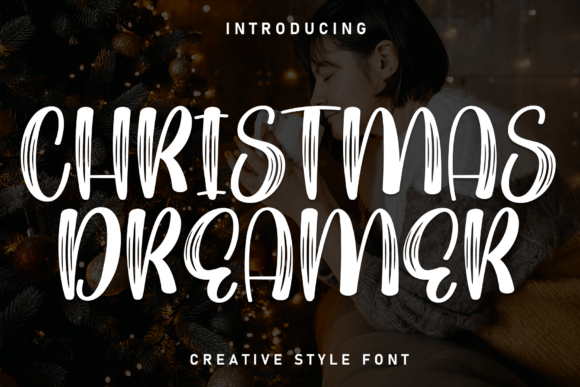
Christmas Dreamer: The Whimsical Typeface That Captures Holiday Wonder
There is a specific feeling that defines the holiday seasonβa blend of nostalgia, excitement, and cozy warmth. It is the sensation of wrapping paper crinkling under your fingers, the glow of string lights against a dark window, and the smell of pine needles in the air. For designers, marketers, and creative enthusiasts, capturing this intangible emotion on a screen or a printed page is often the most challenging part of the job. This is where Christmas Dreamer steps in. It is not merely a font; it is a visual bridge between the mundane and the magical, designed to bring the spirit of the holidays to life through bold strokes and hand-drawn details.
Understanding the Character of Christmas Dreamer
At its core, Christmas Dreamer is a typeface that refuses to be perfect. In an era dominated by sleek, geometric sans-serifs and rigid modernism, this font embraces the imperfections that make the holidays feel authentic. The design features thick, confident downstrokes contrasted with delicate, whimsical flourishes that mimic the movement of a hand holding a marker or a paintbrush. These hand-drawn details are intentional; they suggest human touch and care, which are central themes during the festive season.
When you look at the letterforms, you can almost feel the texture of the ink. The bold weight ensures readability even in smaller sizes, while the playful curves invite the eye to linger. Unlike traditional serif fonts that might feel too formal for a party invitation, or script fonts that can sometimes be difficult to decipher, Christmas Dreamer strikes a unique balance. It offers the elegance required for high-end branding while maintaining the playful energy needed for social media engagement. It captures the cozy charm of the season without sacrificing clarity.
Bringing Festive Cards to Life
One of the most immediate and impactful applications for this typeface is in the realm of holiday greeting cards. Whether you are designing personal invitations for a family gathering or creating templates for a small stationery business, the right typography sets the tone before a single word is read. Christmas Dreamer excels here because it feels like a handwritten note from a friend rather than a mass-produced message.
Imagine a card design featuring a watercolor illustration of a snowy cabin. If you were to use a standard Arial font for the "Merry Christmas" greeting, the connection would feel cold and distant. However, applying Christmas Dreamer instantly warms the composition. The bold strokes anchor the text, making it pop against soft backgrounds, while the whimsical details echo the organic shapes of the snowflakes or holly leaves in the artwork. For those sending physical mail, this font helps ensure your card stands out in a mailbox full of digital printouts and generic store-bought options. It signals effort and thoughtfulness, qualities that are deeply appreciated during the holidays.
Elevating Branding and Small Business Marketing
For small business owners and entrepreneurs, the holiday season is a critical time for revenue and brand visibility. Many brands struggle to adapt their usual corporate identity to fit the festive mood without losing their professional edge. Christmas Dreamer offers a solution that allows businesses to pivot into holiday mode seamlessly. It is particularly effective for industries centered around lifestyle, food, crafts, and retail.
Consider a local bakery launching a special holiday cookie line. Their logo might be clean and modern year-round, but for December, they need something that evokes the taste of sugar and spice. By incorporating Christmas Dreamer into their packaging labels, window displays, and limited-edition signage, they create an immediate sensory association. The font suggests that these cookies are handmade and crafted with love. Similarly, boutique clothing stores can use this typeface for "Gift Guide" banners or sale announcements. The playful yet elegant nature of the font prevents the marketing from feeling too aggressive or sales-heavy, instead framing the offer as a festive opportunity to indulge.
Social Media Engagement and Digital Presence
In the digital landscape, attention spans are short, and content must grab the viewer within seconds. Social media posts, especially on platforms like Instagram and Pinterest, rely heavily on visual hierarchy and aesthetic appeal. Christmas Dreamer is a powerful tool for cutting through the noise of the feed. Its bold weight makes headlines legible even on small mobile screens, while the whimsical character encourages users to pause and engage.
Designers often use this font for quote graphics, event flyers, and promotional stories. A post announcing a charity drive or a community tree lighting ceremony gains immediate emotional resonance when the headline is set in Christmas Dreamer. The hand-drawn quality resonates with audiences who are increasingly seeking authenticity online. It breaks the fourth wall of polished corporate design, inviting the audience into a more personal, communal experience. Furthermore, the versatility of the font allows it to pair well with various color palettes, from traditional reds and greens to modern metallics and pastels.
Navigating Design Considerations
While Christmas Dreamer is incredibly versatile, understanding its limitations is key to using it effectively. Because of its decorative nature and bold strokes, it is best used for headlines, titles, and short phrases. Attempting to set large blocks of body text in this typeface can lead to readability issues and visual clutter. The intricate details that make it charming can become overwhelming if stretched across paragraphs.
Whether you are a graphic designer looking to expand your portfolio, a marketer aiming to boost holiday sales, or a hobbyist creating personalized gifts, Christmas Dreamer provides the necessary tools to elevate your work. It transforms simple text into an emotional experience, reminding viewers of the magic that defines the season. By choosing this font, you are not just selecting a style; you are committing to a design philosophy that prioritizes warmth, wonder, and the joy of connection. Let Christmas Dreamer add that playful yet elegant touch to your next project, ensuring your message is not just seen, but felt.